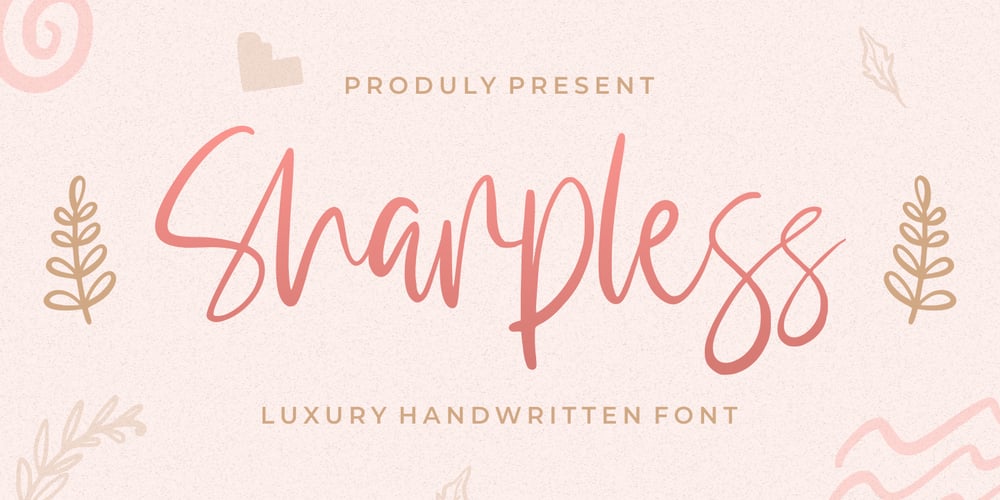
Sharpless Font Family was designed by Good Java and published by Good Java Studio. Sharpless contains 1 styles and family package options. Sharpless is a handwritten script font in a natural and modern handwritten style. It’s perfect for logos, invitations, stationery, wedding designs, social media posts, advertisements, product packaging, product designs, label, photography, watermarks, special events and more. This font includes Ligatures and also Multilingual support. A series of additional dingbats/doodles can be accessed as an OpenType feature in the stylistic set 01.